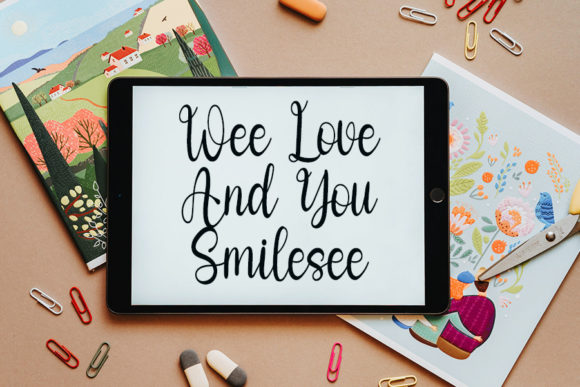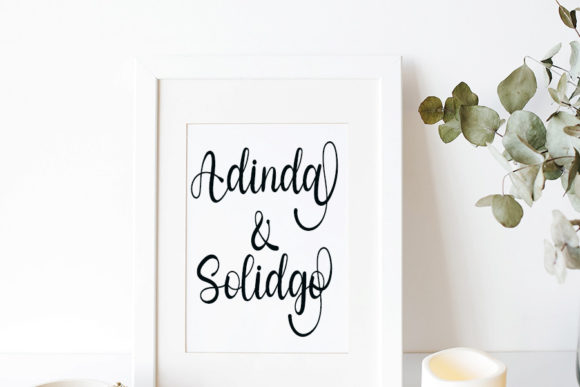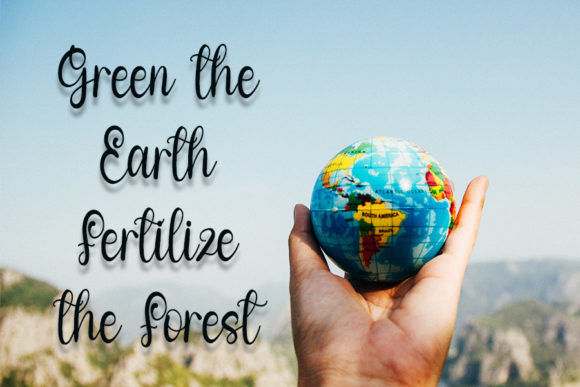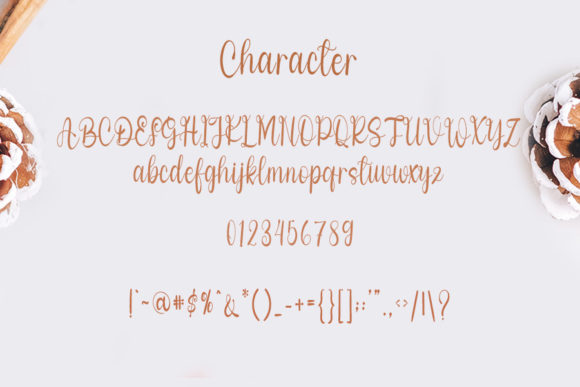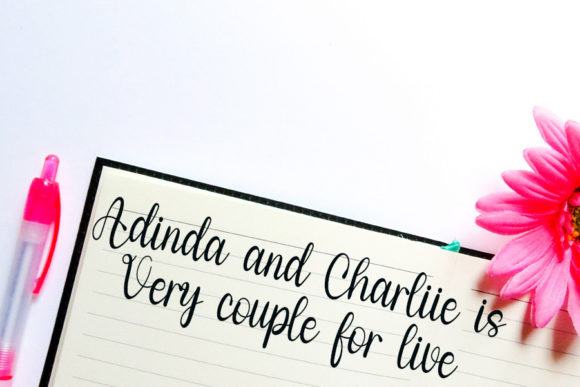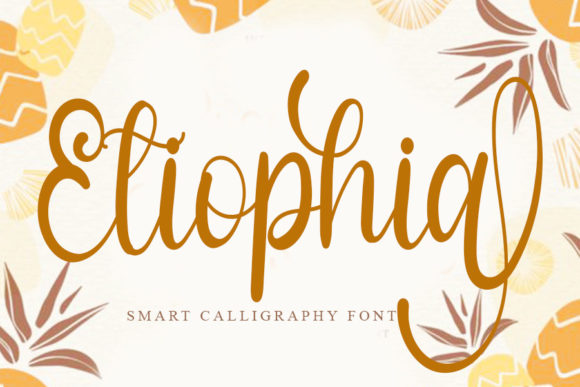
Etiophia Font: Elevate Your Designs with a Stunning Handwritten Style
Are you looking for a font that can add a personal touch to your designs? Look no further than Etiophia Font, a beautiful handwritten font that is sure to brighten up any project. With its flexibility and neat style, Etiophia is the perfect choice for designers and crafters who want to add a unique and creative flair to their work.
The Characteristics of Etiophia Font
Etiophia Font is a stunning handwritten font that boasts a range of characteristics that make it stand out from the crowd. Its flexibility and neat style make it perfect for a wide range of design projects, from invitations and greeting cards to branding and advertising materials. The font’s handwritten style gives it a personal and approachable feel, making it ideal for designs that require a touch of warmth and personality.
Endless Variations at Your Fingertips
One of the best things about Etiophia Font is its endless variations. With this font, you can create a wide range of different looks and styles, from elegant and sophisticated to playful and whimsical. Whether you’re designing for a client or working on a personal project, Etiophia Font gives you the flexibility to experiment and try out new things. So don’t be afraid to get creative and have fun with this cool font!
Etiophia Font is a dream come true for designers and crafters who want to add a personal touch to their work. Whether you’re creating digital products or handmade crafts, this font is sure to inspire your creativity and help you produce beautiful, one-of-a-kind designs. With Etiophia Font, you can:
- Create stunning invitations and greeting cards that will leave a lasting impression
- Design beautiful branding and advertising materials that reflect your unique style
- Add a personal touch to your digital products, such as ebooks and printables
- Make your handmade crafts stand out with custom labels and packaging
Tips for Using Etiophia Font
To get the most out of Etiophia Font, here are a few tips to keep in mind:
- Experiment with different sizes and colors to create visual interest
- Pair Etiophia Font with other fonts to create a unique and eye-catching combination
- Use Etiophia Font to add a personal touch to your designs, such as in headings or titles
- Don’t be afraid to get creative and try out new things – Etiophia Font is all about experimentation and self-expression!
In conclusion, Etiophia Font is a stunning handwritten font that is sure to elevate your designs and add a personal touch to your work. With its flexibility and neat style, Etiophia is the perfect choice for designers and crafters who want to create beautiful, one-of-a-kind designs. So why not give Etiophia Font a try today and see the amazing things you can create?
Get Ready to Fall in Love with Etiophia Font
Etiophia Font is more than just a font – it’s a way to bring your designs to life and make them truly special. With its endless variations and flexibility, Etiophia Font is sure to inspire your creativity and help you produce stunning designs that will leave a lasting impression. So what are you waiting for? Get ready to fall in love with Etiophia Font and take your designs to the next level!